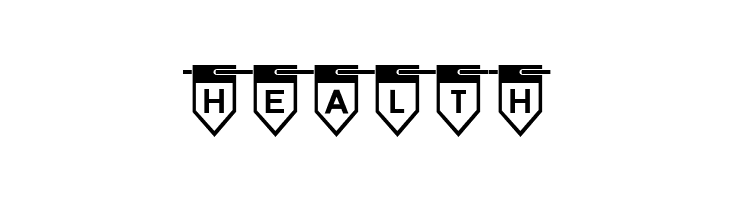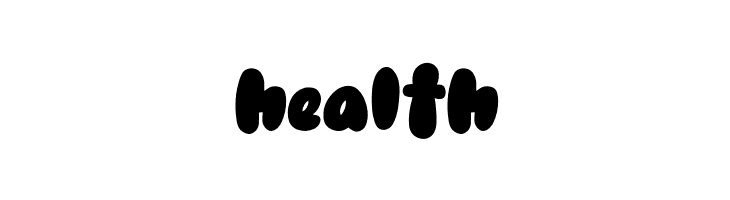
A playful, decorative font with characters enclosed in flag-like shapes, ideal for festive designs.
A playful, hand-drawn font with a chalk-like texture.
A playful, hand-drawn font with a chalkboard texture and sketch-like appearance.
A barcode font for encoding alphanumeric characters and symbols in a machine-readable format.
A bold, sketch-style decorative font with a playful and artistic appearance.
A bold, distressed font with a rugged, vintage feel.
A playful, bold font with rounded, bubble-like characters.
A bold, playful font with characters hanging on ropes, perfect for festive designs.
A playful, rounded font with a bold and friendly style.